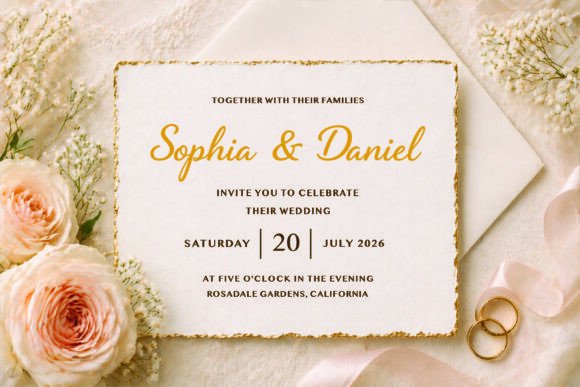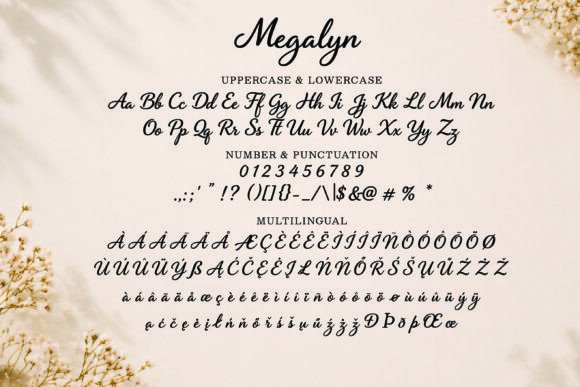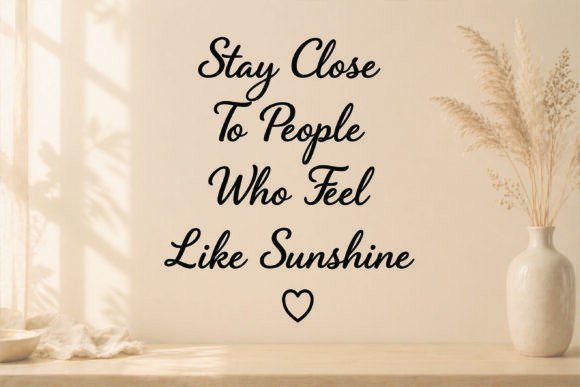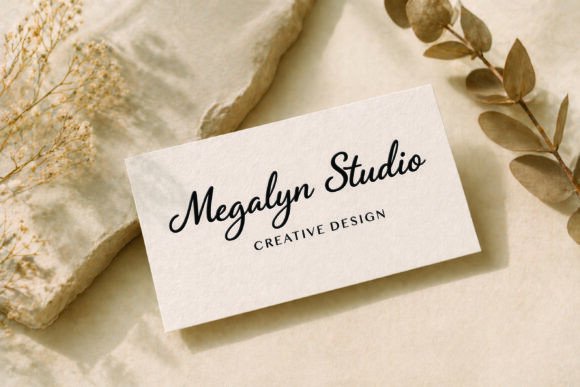
Introduction to Megalyn Font
Megalyn is a modern elegant script font with smooth flowing strokes and graceful curves.
Designed to bring a touch of sophistication and warmth, Megalyn works beautifully for wedding invitations, branding, logos, packaging, social media, and feminine design projects Its natural handwritten style gives your text a stylish, romantic, and timeless feel, making it perfect for both personal and professional creative work.